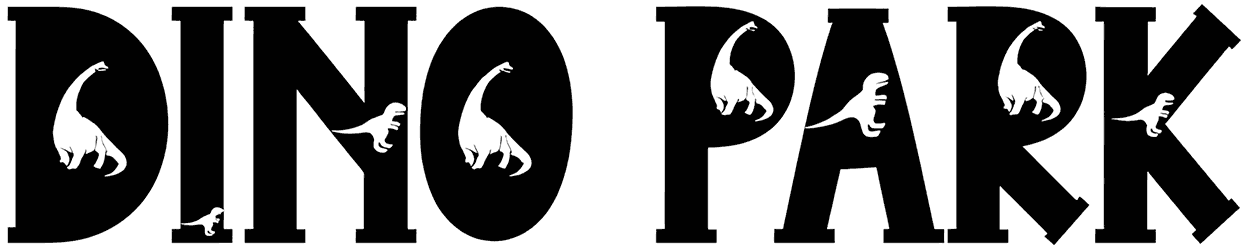
Dino Park Font
Sometimes using a cinematic symbol would really work and makes a fancy font such as Dino Park look innovative, dreamy, playful, and dramatic. In designing this font the symbol of the Jurassic Park is precisely used.
So, having a dinosaur font such as this one would be tempting for any graphic designer, and we strongly encourage you to include it in movie posters, video game banners, product labels, and magazines.